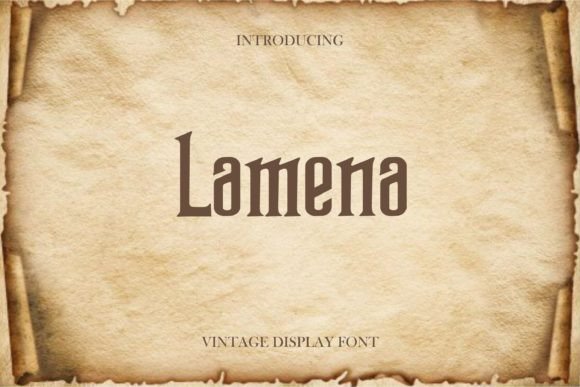
Lamena Font: Unleashing the Power of Masculinity in Typography
In the realm of typography, fonts play a pivotal role in shaping the visual identity of a brand. The right font can elevate a brand’s message, convey its values, and create a lasting impression on its audience. For masculine brands, a font that exudes strength, power, and grit is essential. This is where Lamena Font comes into play. With its bold, uncompromising, and uniquely manly character, Lamena Font is the perfect choice for brands looking to make a statement.
Key Features of Lamena Font
- Bold and Uncompromising: Lamena Font boasts a bold and uncompromising character that commands attention and respect.
- Masculine Aura: The font exudes a strong masculine aura, making it perfect for brands that want to convey a sense of power and grit.
- Versatile: Lamena Font can be used for a variety of applications, including logos, display text on posters, and other media platforms.
- Unique: The font’s unique character sets it apart from other fonts, making it an excellent choice for brands looking to stand out.
The Benefits of Using Lamena Font
Lamena Font offers several benefits for brands looking to create a strong visual identity. Some of the key benefits include:
- Enhanced Brand Visibility: The font’s bold character ensures that your brand captures every eye, making it perfect for display text and logos.
- Conveys Masculinity: Lamena Font’s masculine aura perfectly aligns with robust, masculine brands, conveying a sense of power and grit.
- Versatility: The font can be used across various media platforms, making it an excellent choice for brands with a diverse marketing strategy.
- Uniqueness: Lamena Font’s unique character ensures that your brand stands out from the competition, making it an excellent choice for brands looking to create a lasting impression.
Who Can Benefit from Using Lamena Font?
Lamena Font is perfect for brands that want to convey a sense of masculinity, power, and grit. Some of the industries that can benefit from using Lamena Font include:
- Sports and Fitness: Brands in the sports and fitness industry can benefit from Lamena Font’s bold and masculine character.
- Technology and Gaming: Tech and gaming brands can use Lamena Font to convey a sense of power and sophistication.
- Automotive: Car brands and automotive companies can benefit from Lamena Font’s strong and masculine aura.
- Finance and Investing: Financial institutions and investment companies can use Lamena Font to convey a sense of stability and power.
How to Use Lamena Font Effectively
To get the most out of Lamena Font, it’s essential to use it effectively. Here are some tips on how to use Lamena Font:
- Use it for Headlines: Lamena Font is perfect for headlines and display text, making it an excellent choice for posters, billboards, and other marketing materials.
- Pair it with Other Fonts: Pair Lamena Font with other fonts to create a unique and visually appealing combination.
- Use it for Logos: Lamena Font’s bold character makes it an excellent choice for logos, especially for brands that want to convey a sense of masculinity.
- Experiment with Colors: Experiment with different colors to find the perfect combination that aligns with your brand’s visual identity.
Lamena Font is a powerful and masculine font that can elevate a brand’s visual identity. With its bold, uncompromising, and uniquely manly character, Lamena Font is perfect for brands that want to convey a sense of power, grit, and masculinity. By using Lamena Font effectively, brands can create a lasting impression, convey their values, and stand out in a crowded market. Whether you’re crafting logos, display text on posters, or other marketing materials, Lamena Font is an excellent choice for brands looking to make a statement.